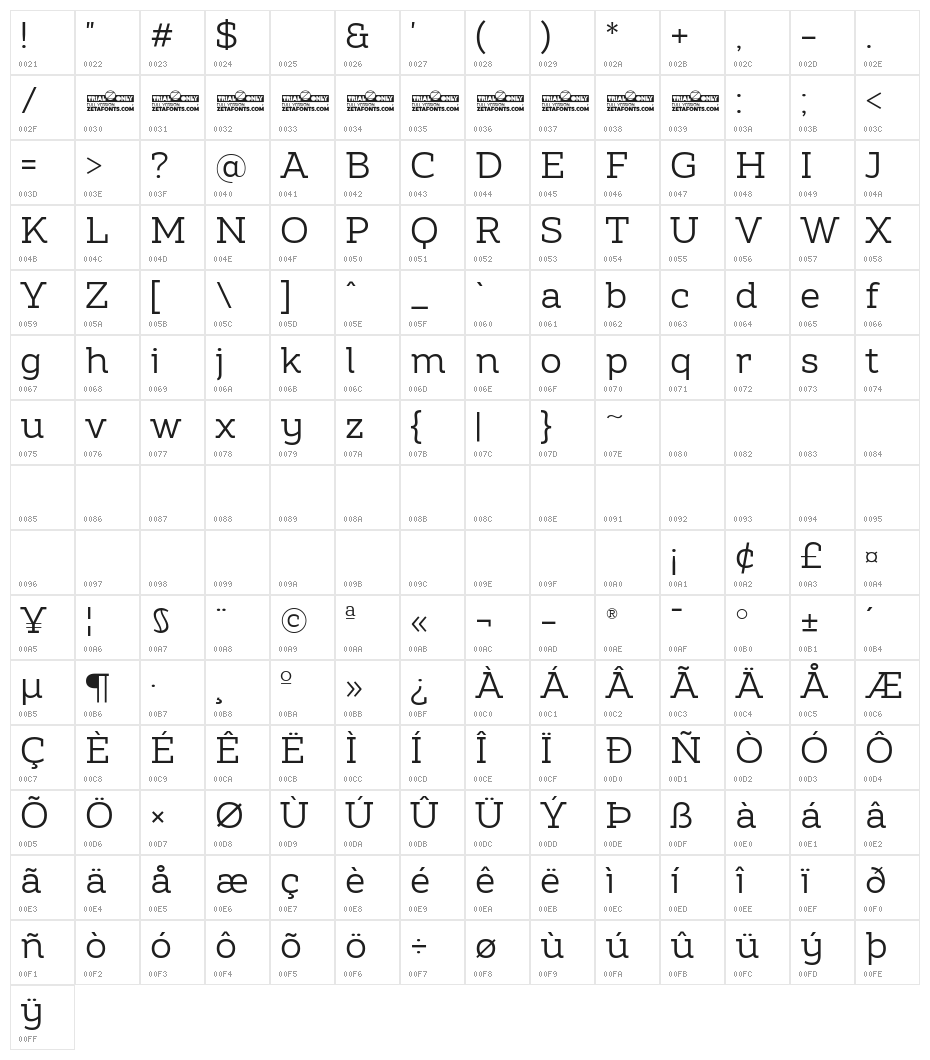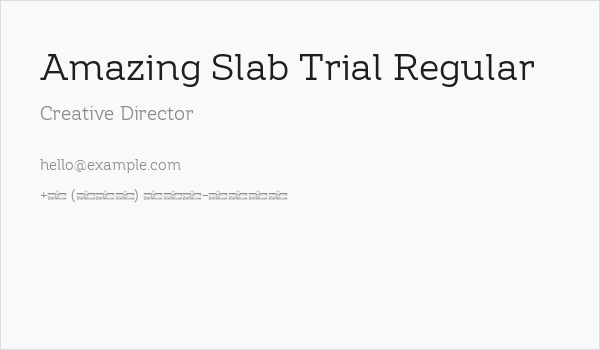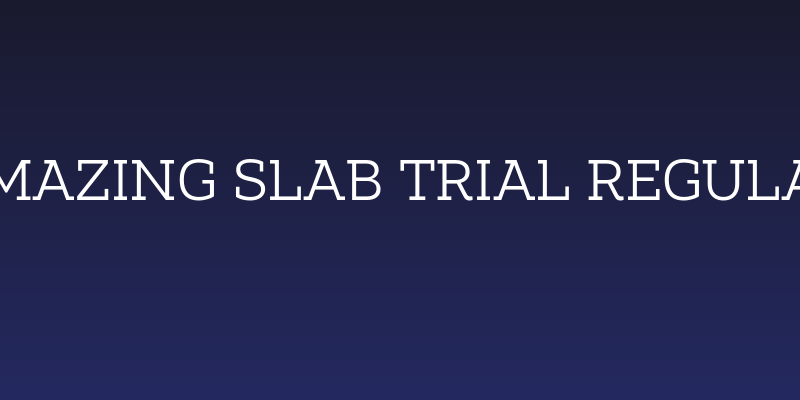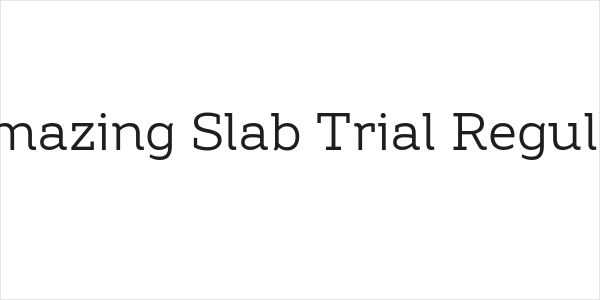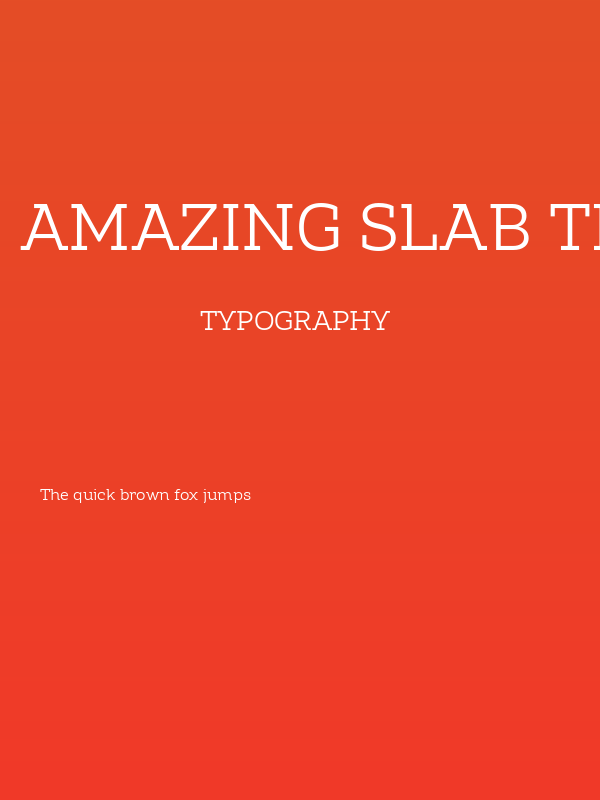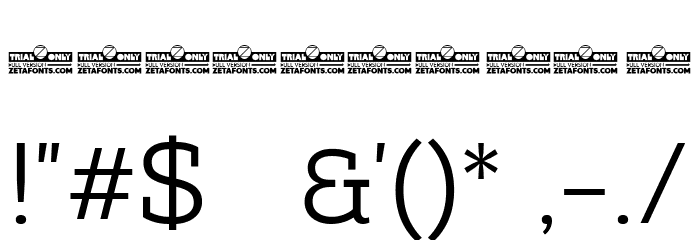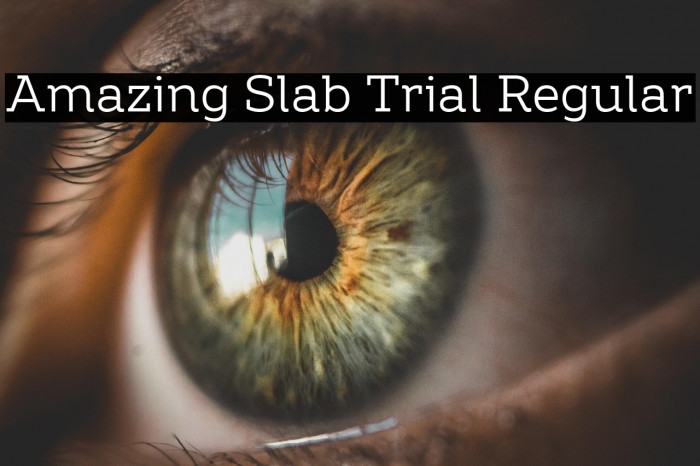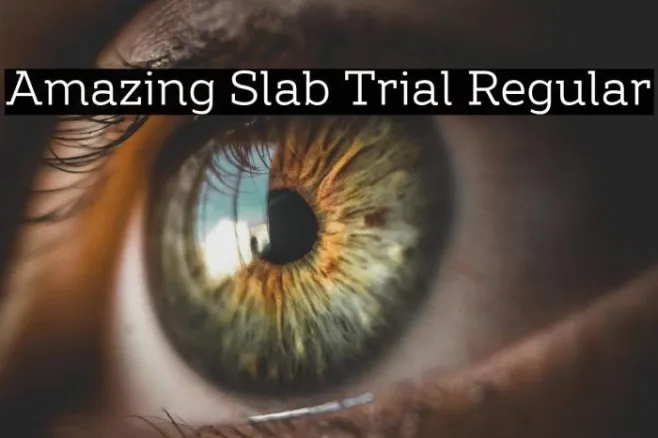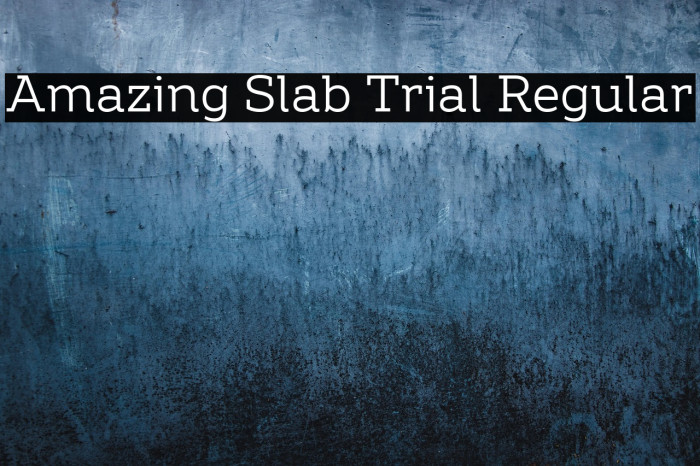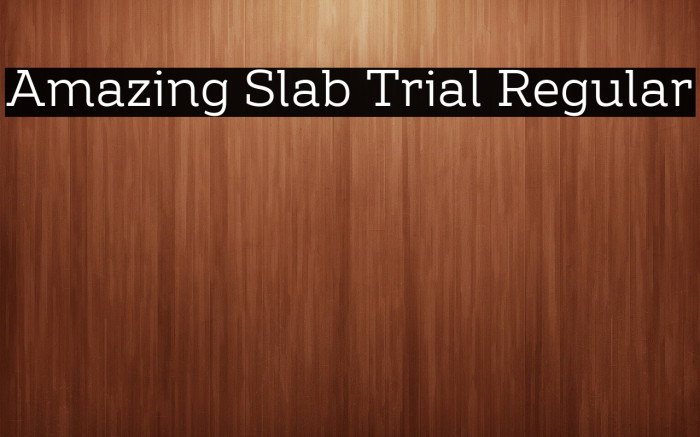
Amazing Slab Trial Regular Font
Amazing Slab Trial Regular Description
This font features a robust and structured design, characterized by its slab serif style. The serifs are prominent and block-like, providing a solid foundation to each character. The uppercase letters are bold and commanding, while the lowercase letters maintain a consistent and harmonious flow. The numerals are clear and easily distinguishable, making them suitable for various applications. Special characters are well-integrated, maintaining the overall aesthetic of the font. The font's design is both modern and classic, making it versatile for a wide range of uses.
| Proposed Projects | Ideal for branding, editorial design, advertising, and any project requiring a strong, authoritative typeface. |